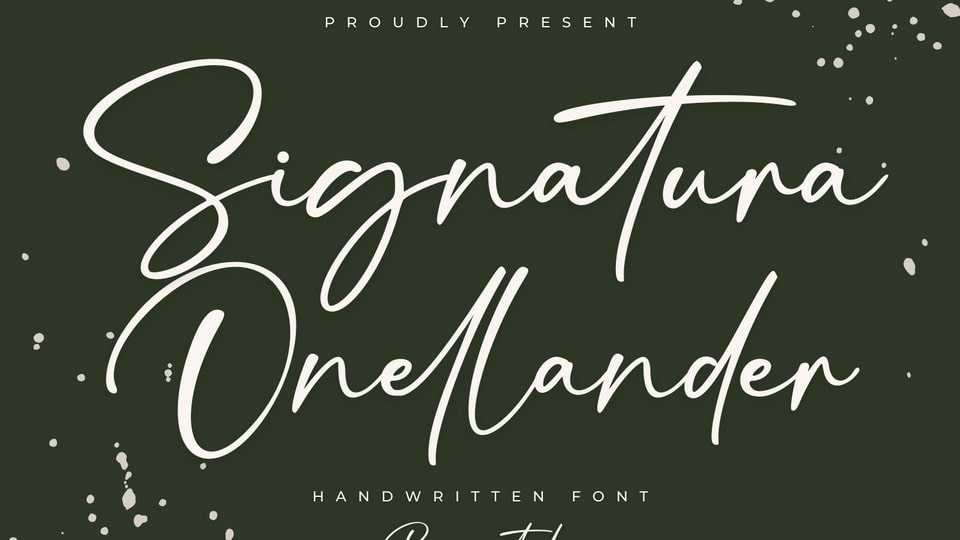
Download Signatura Onellander font, a handwritten typeface that adds an elegant, versatile touch to everything from branding and social media to invitations and packaging.